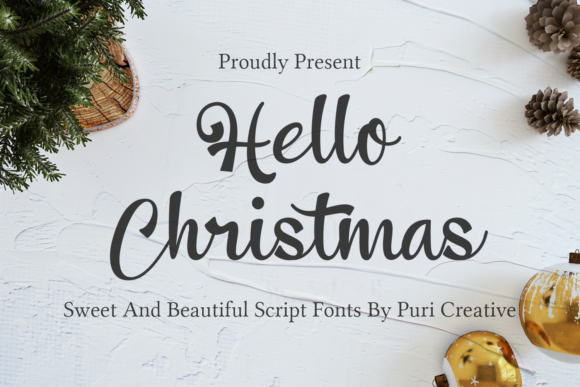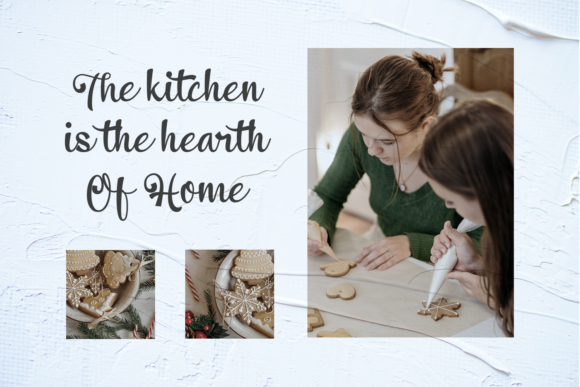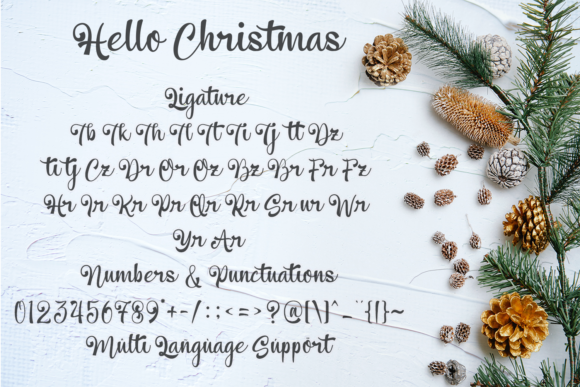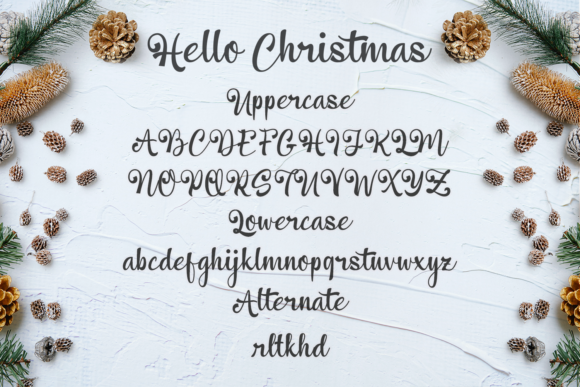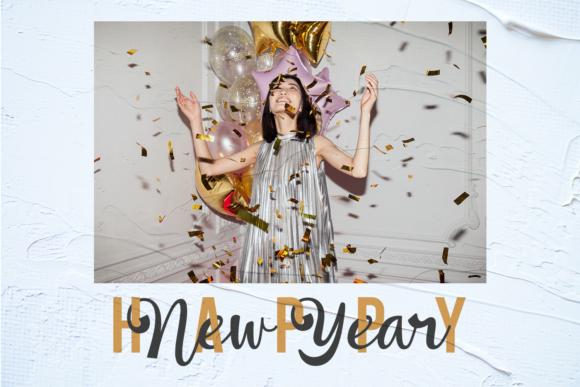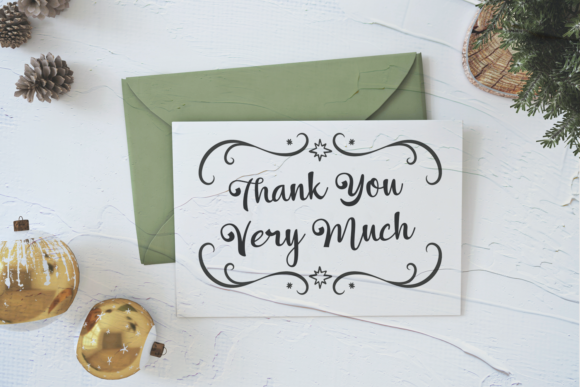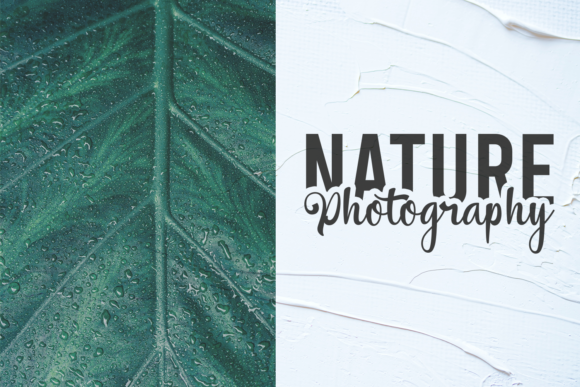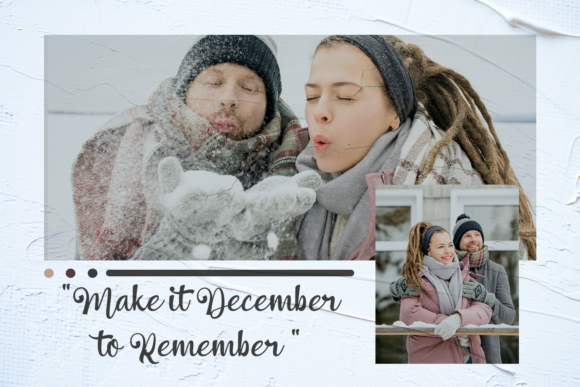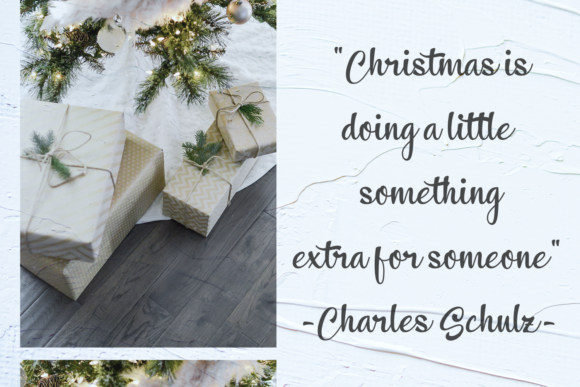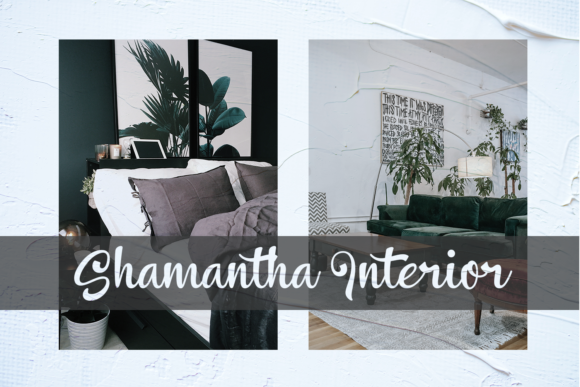
Hello Christmas Font
About Hello Christmas Font
Hello Christmas is a modern handwritten font that is readable, bold and stylish. It is defined by smooth curves and is perfect for fashion branding or editorial designs. Add it confidently to your projects, and you will love the results.